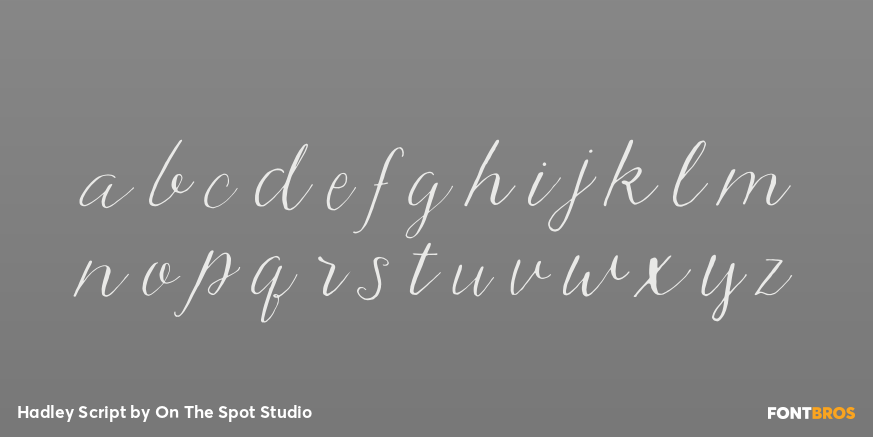
Hadley Script
Font Family by On The Spot Studio
Hadley Script is a hand drawn italic script perfect for your client projects or the self proclaimed font-a-holic! Includes numbers and alpha!